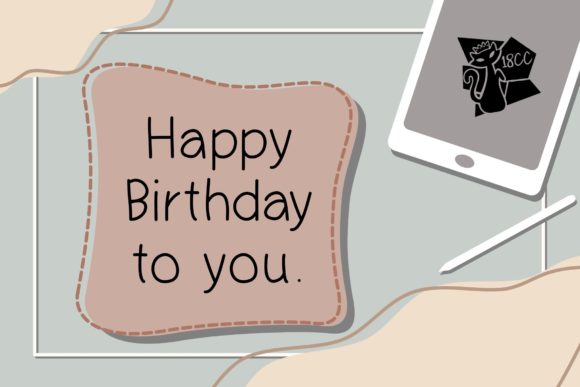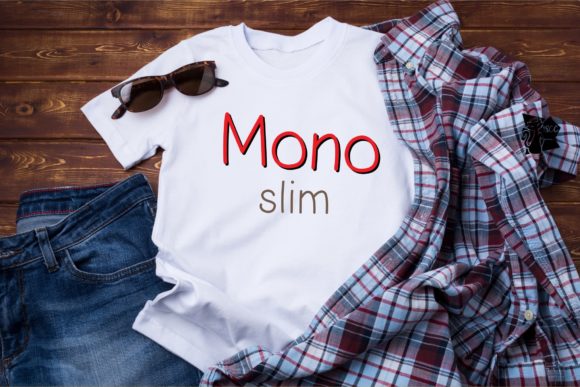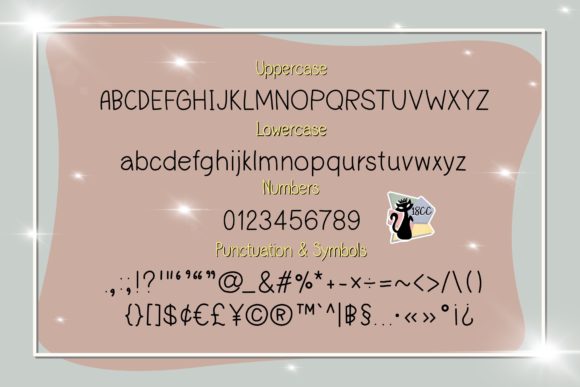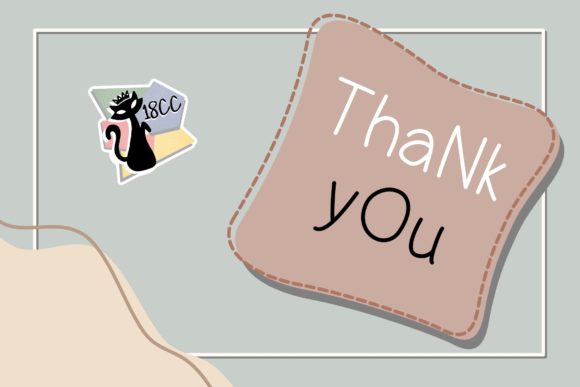
About Monoslim Font
Monoslim is a cute handwritten font. This font is the perfect fit for all of your logos, branding, social media, crafty DIY projects, and much more!